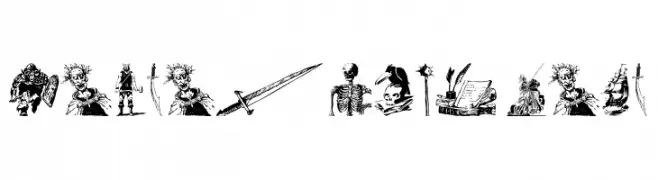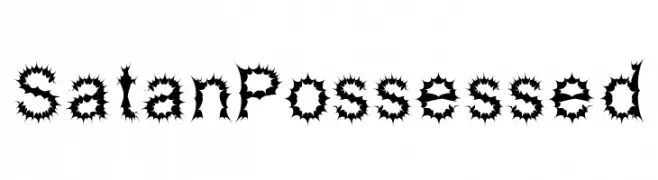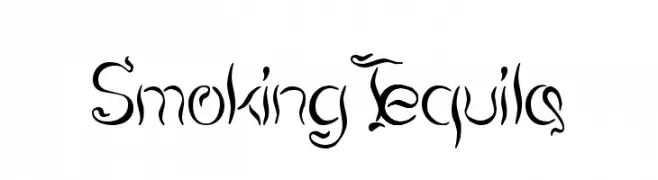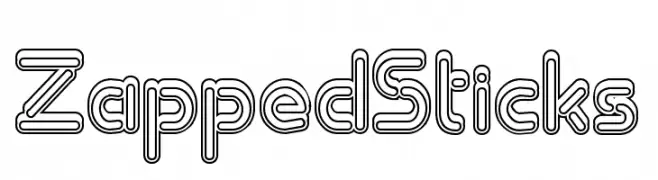
An elegant, decorative script font with intricate swirls and embellishments.
A dramatic, edgy font with sharp, dripping strokes for a haunting effect.
Christmas-themed dingbat font with festive illustrations.
Fantasy-themed clipart illustrations form each character.
A bold serif font with a three-dimensional offset shadow effect.
A bold, triple-line font with a playful, outlined design.
A bold, thorny font with sharp, jagged edges for dramatic impact.
A decorative font with a flowing, organic style and medium contrast.
A bold, graffiti-style font with angular, dynamic forms and a three-dimensional effect.
A bold, jagged font with sharp, angular shapes for a dynamic look.